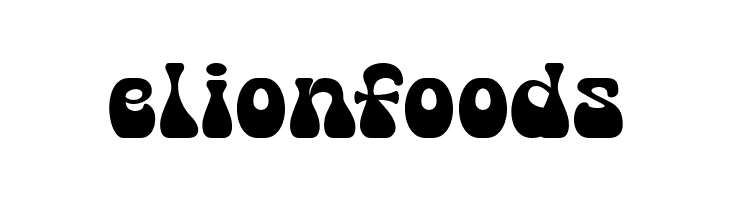
A playful, handwritten font with bold, rounded strokes and a casual, informal style.
A playful, casual handwritten font with an informal and whimsical style.
A bold blackletter font with sharp, angular lines and a gothic style.
A bold, blackletter-style font with ornate, angular letterforms enclosed in squares.
A bold, distressed font with a grunge aesthetic.
An elegant, flowing script font with graceful loops and cursive strokes.
A bold, distressed font with a vintage, grunge aesthetic.
A bold, distressed font with a grunge, stamped appearance.
A playful and whimsical font with exaggerated curves and artistic flair.
A playful, handwritten font with an informal and organic style.
A bold, geometric sans-serif font with a unique horizontal line through each character.
A bold, geometric font with a unique horizontal line crossing each character.
A whimsical script font with heart motifs and elegant, flowing letters.
A bold, italic, and modern font with a dynamic slant and clean lines.
A bold, geometric font with a three-dimensional effect and strong, angular characters.
An ornate Blackletter font with distressed, vintage appeal.
A bold, jagged font with sharp, angular shapes for an edgy look.
A bold, retro-inspired decorative font with organic, playful shapes.
A bold, geometric font with Art Deco influences and strong architectural elements.
A bold, geometric font with a double-line style and modern aesthetic.
A whimsical font featuring stick figures with expressive faces as characters.
Bold pictogram set with a mafia and crime theme.
A bold, geometric font with sharp angles and a strong presence.
A playful, bold font with rounded, bubbly characters ideal for whimsical designs.
A bold, hand-painted font with an expressive and dynamic style.
A bold, geometric font with a playful, vintage style.
A bold, graffiti-inspired font with dynamic, expressive strokes.
A bold, graffiti-inspired font with dynamic strokes and sharp angles.
A stylish and elegant script font with fluid, flowing letterforms.